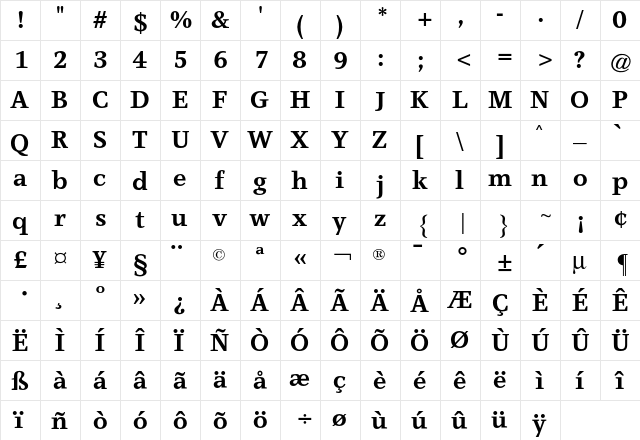
Claridge CG Bold
Design Context for Claridge CG Typeface
Claridge CG takes a measured approach to typography — its balanced proportions and neutral character make it a reliable workhorse for both digital and print work. Its bold stroke weight gives it real presence on the page.
Pro Tip: Use Claridge CG in both headline and body roles to test its range before committing to a single application.